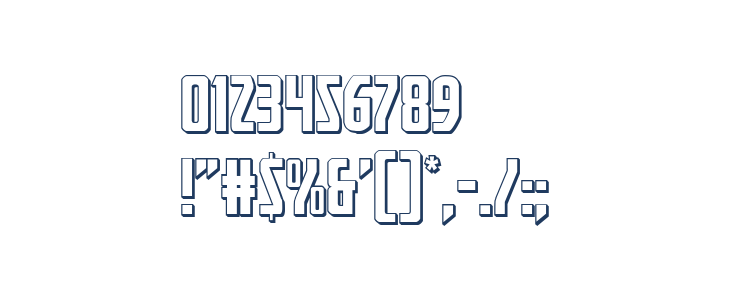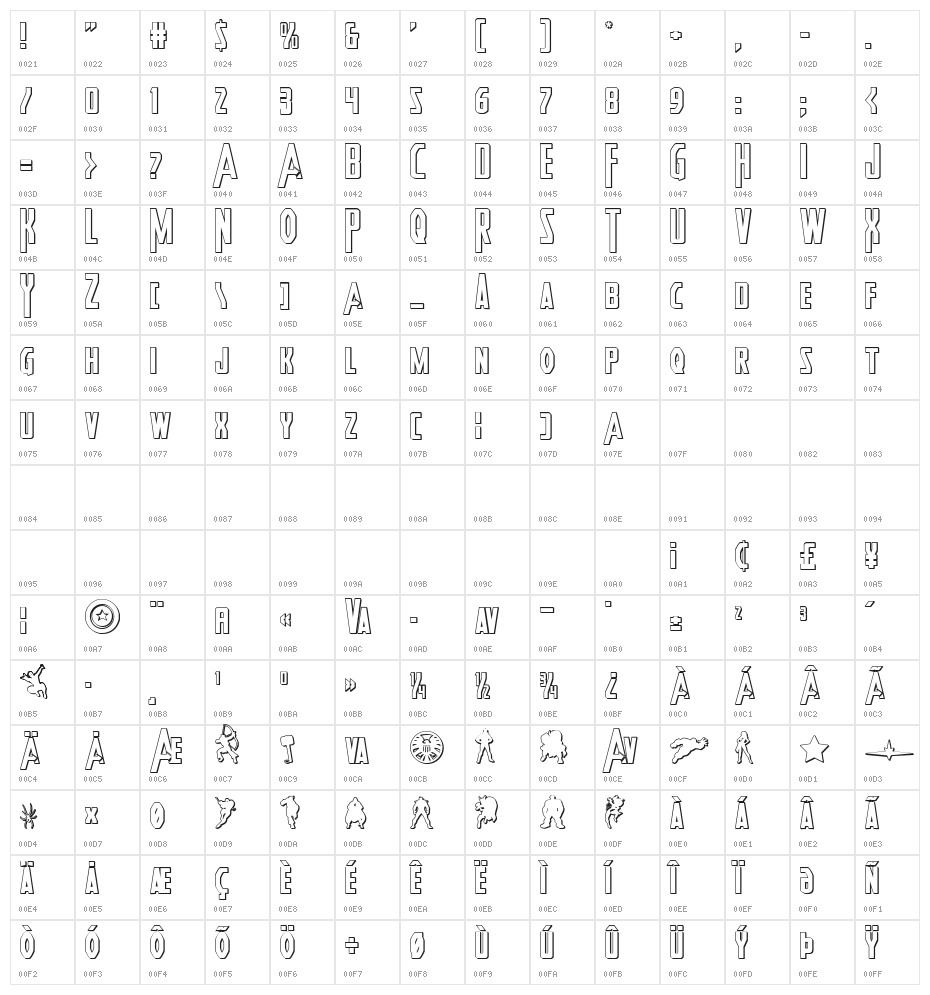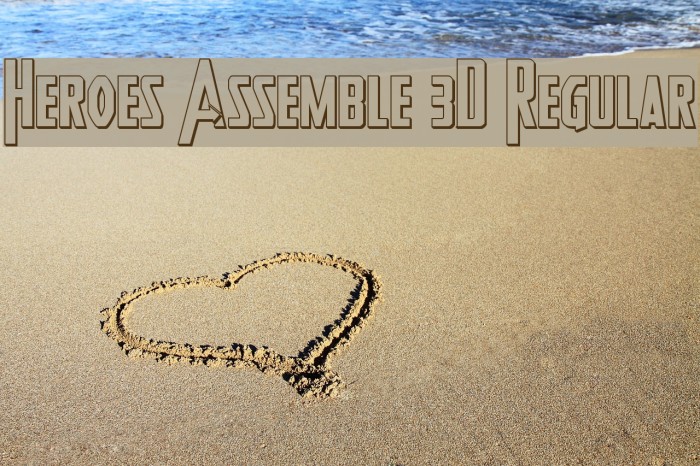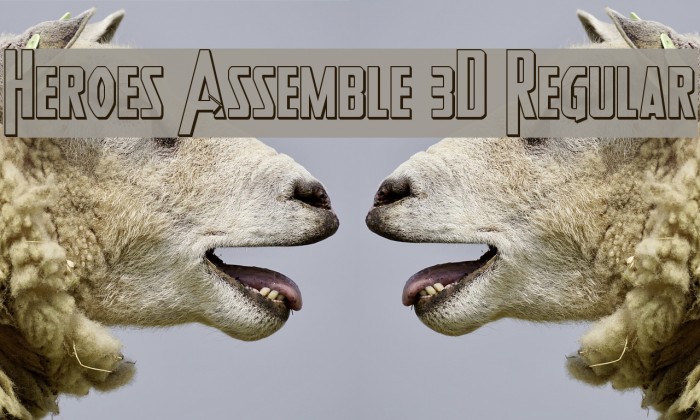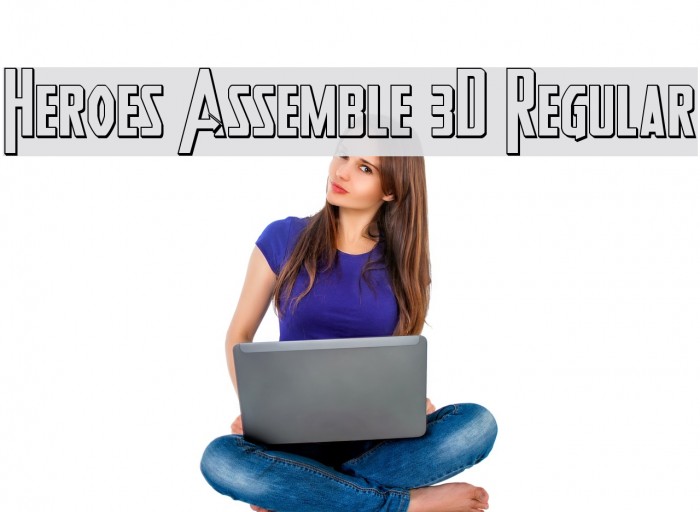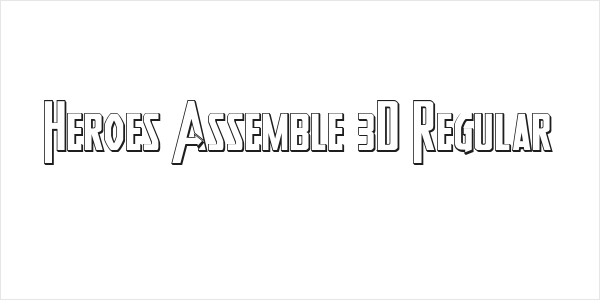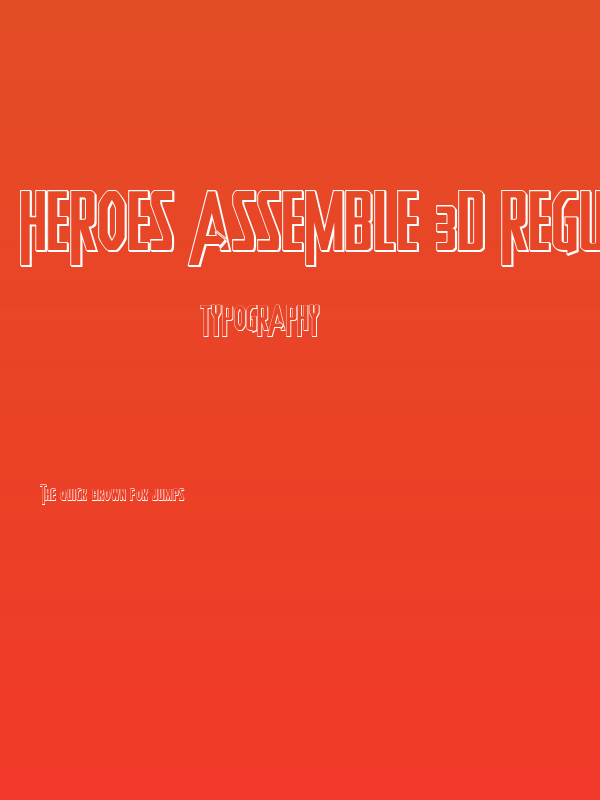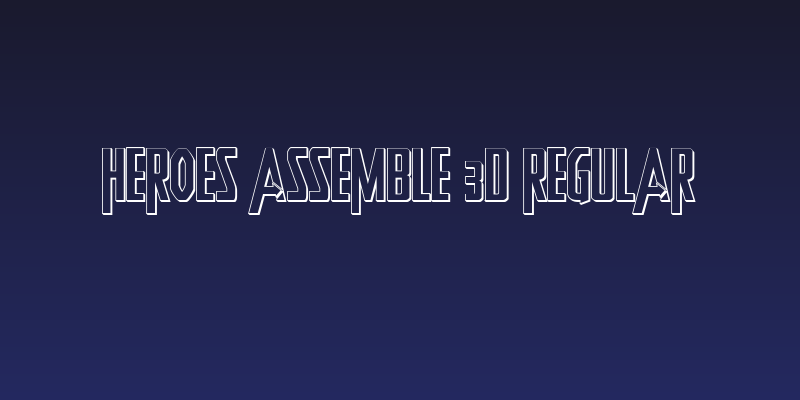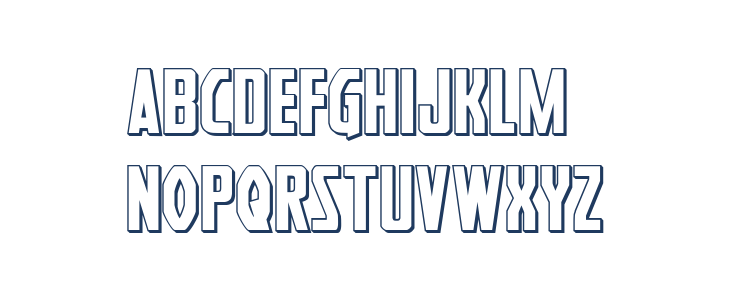
Heroes Assemble 3D Regular Font
Heroes Assemble 3D Regular Description
This font features a bold, three-dimensional style with a strong, impactful presence. The characters are outlined with a thick border, giving them a dynamic and powerful look. The uppercase letters are angular and geometric, with sharp edges and a modern aesthetic. The numbers and special characters maintain this bold style, ensuring consistency across all elements. The font's design is reminiscent of comic book or superhero themes, making it ideal for projects that require a dramatic and eye-catching typeface.
| Proposed Projects | Ideal for comic book covers, superhero-themed events, posters, and branding that requires a bold statement. |